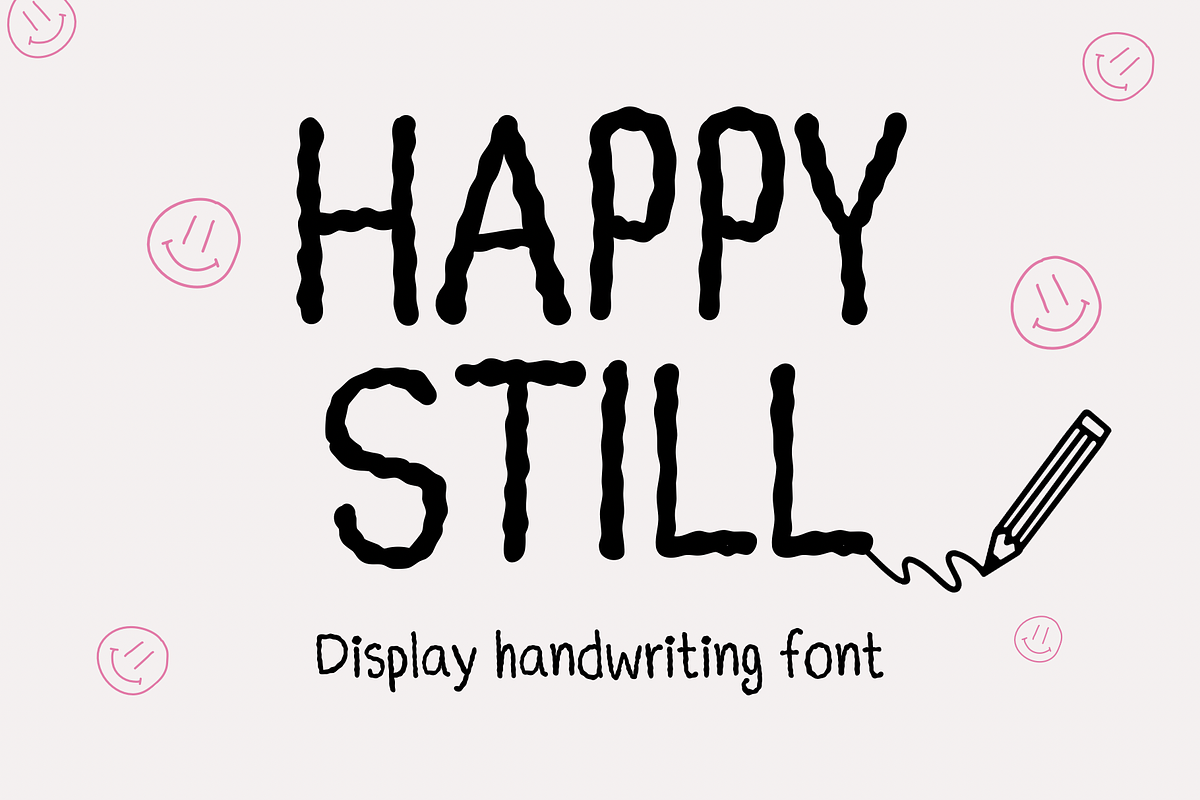
Happy still font Free Download
Happy Still Font Free Download
Happy Still Font Free Download is a cheerful and playful handwritten typeface designed to bring joy and warmth to your designs. With its soft curves and friendly letterforms, this font is perfect for greeting cards, invitations, social media posts, branding, and any project that needs a fun, positive vibe.
The font’s casual, welcoming style makes it ideal for children's products, party designs, and anything that aims to spread happiness. Happy Still Font Free Download brings a unique personality to both digital and print materials, ensuring your message is delivered with a smile.